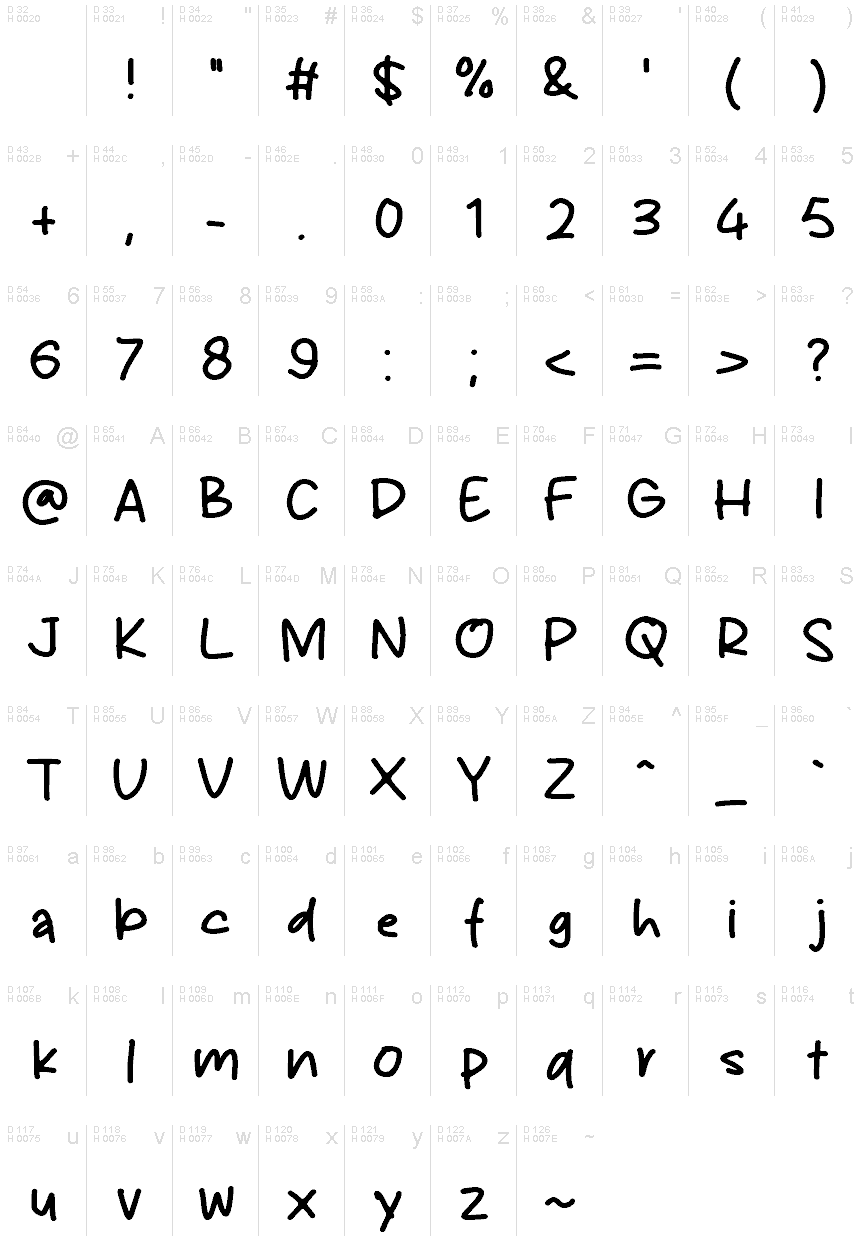
Daily Moody
Daily Moody font is a free handwritten font from Origin Type that is all about casual elegance and artistic flair. It carries a hand-drawn feel with an organic flow and whimsical touch, allowing each character to beautifully complement the other for stunning word designs and logos. Daily Moody also brings simplicity to the job, so no complicated tools stand between artists and their goals.
This charming font can be the ray of sunshine as much-needed notes or it can carry essential information with modern flair as students use it for projects or cheerleaders for banners. You can also share fun birthday invitations and captions or mix up your Instagram themes. Daily Moody suits both web projects since it matches new styles, or personal ones like daily planners or checklists.